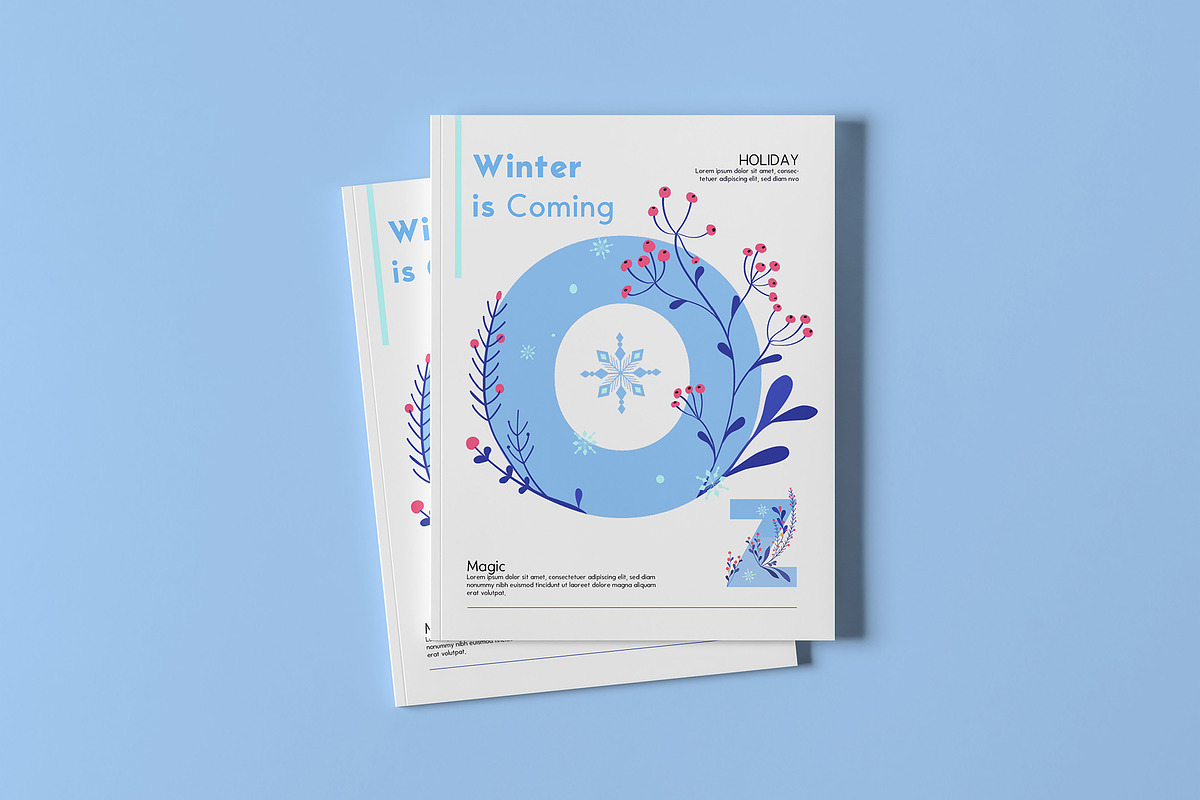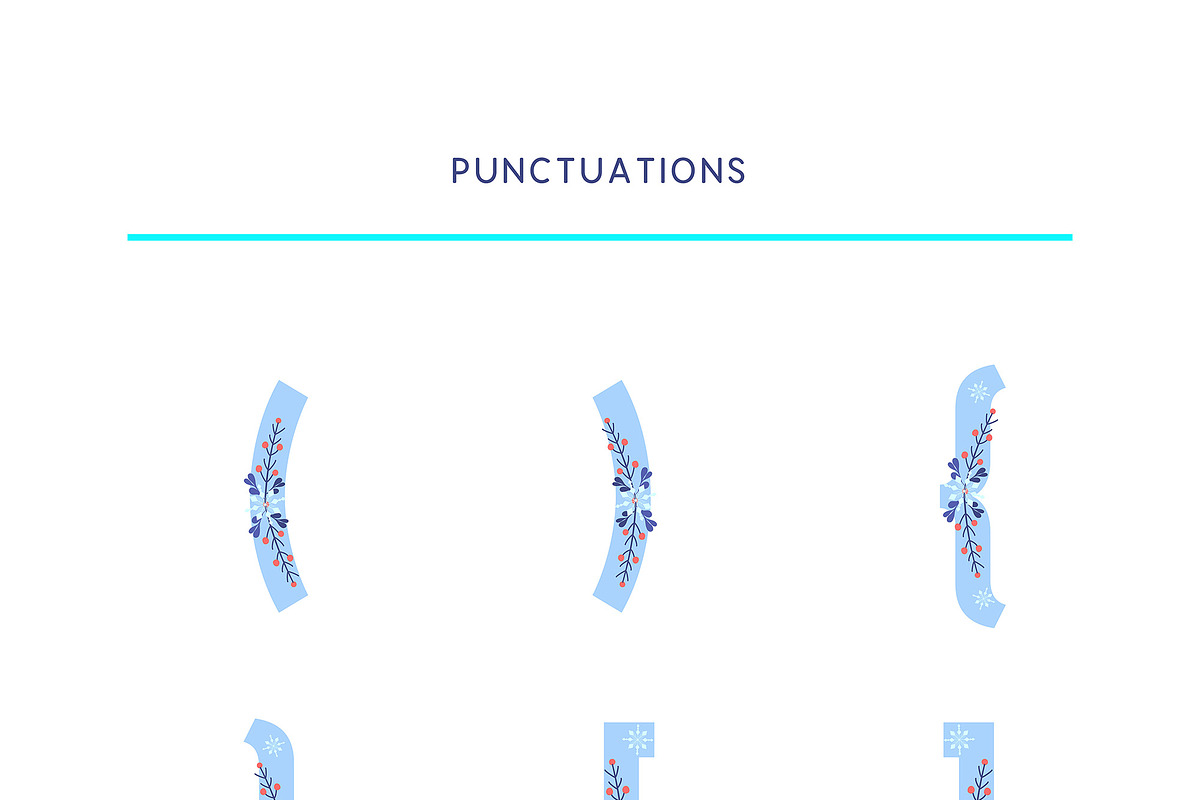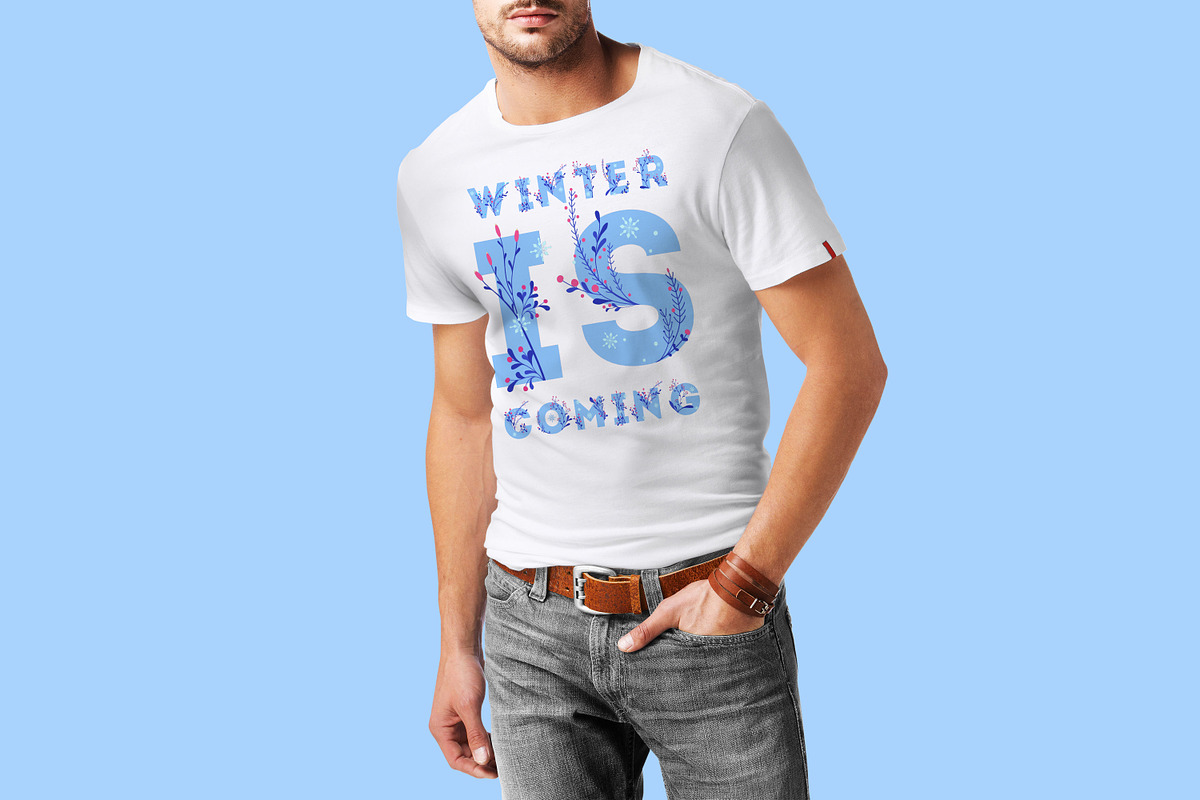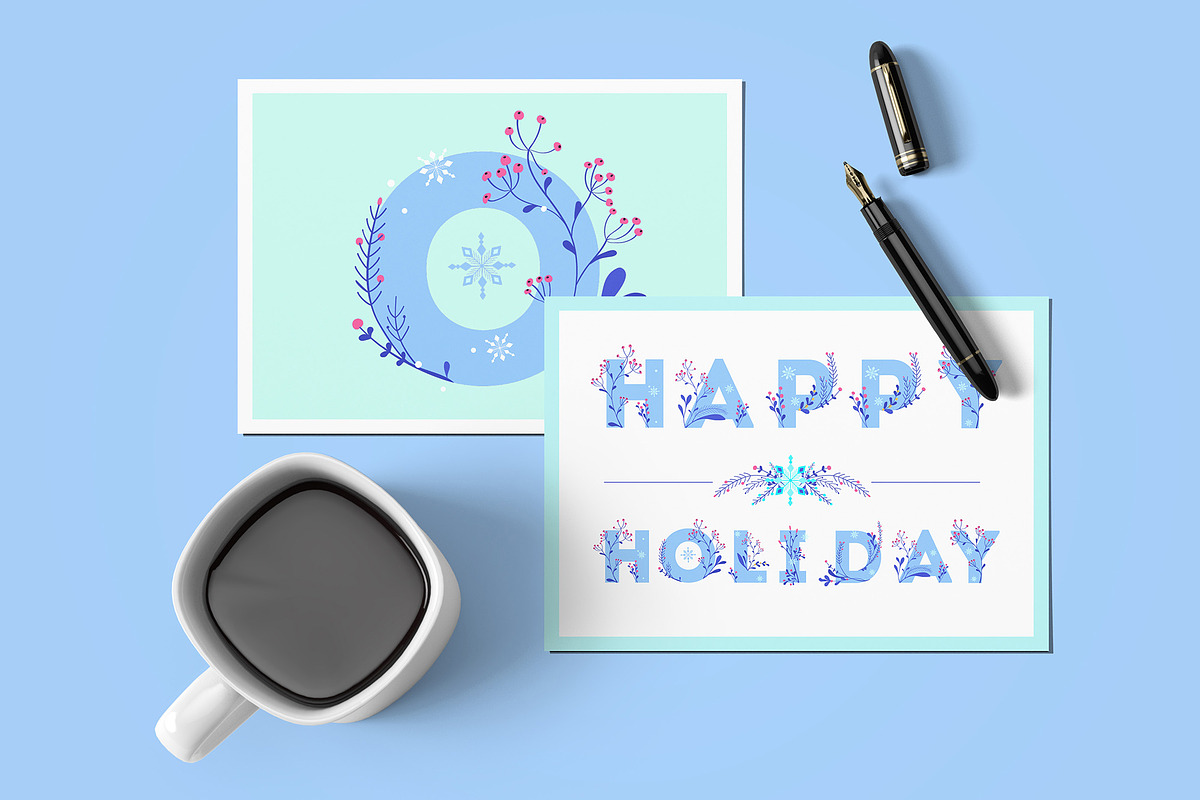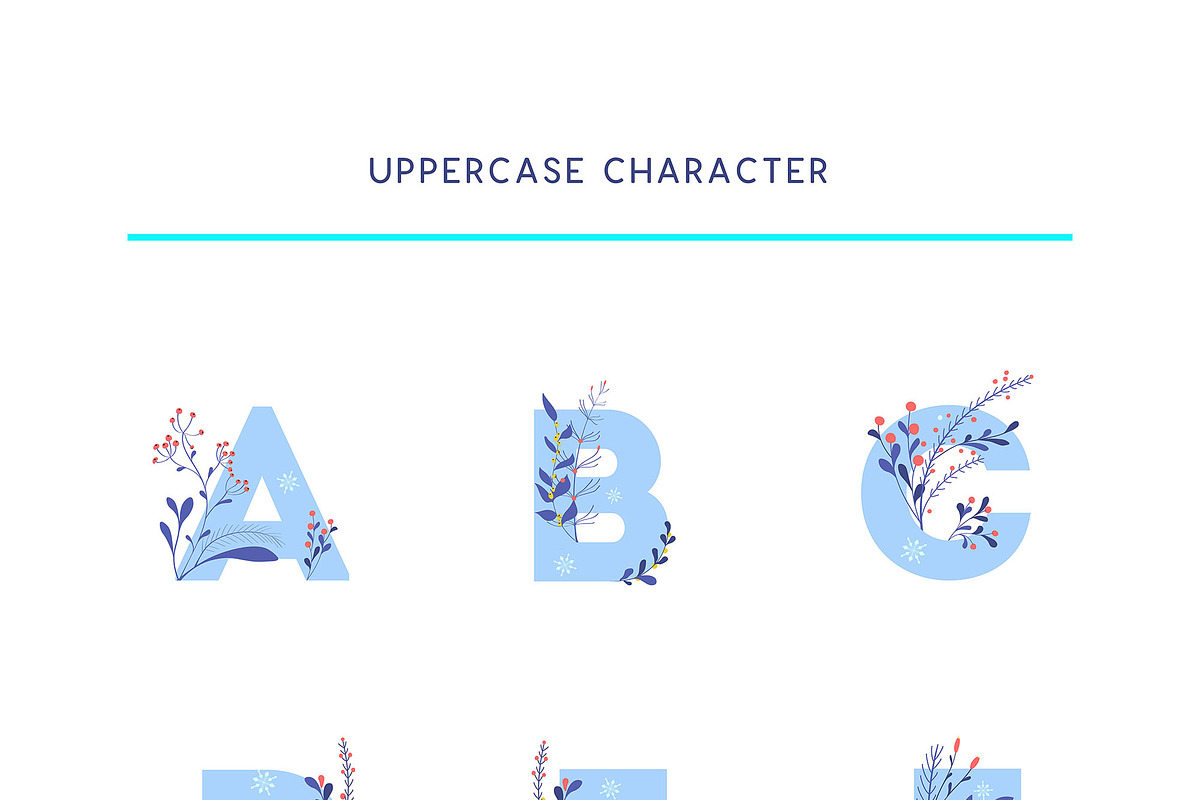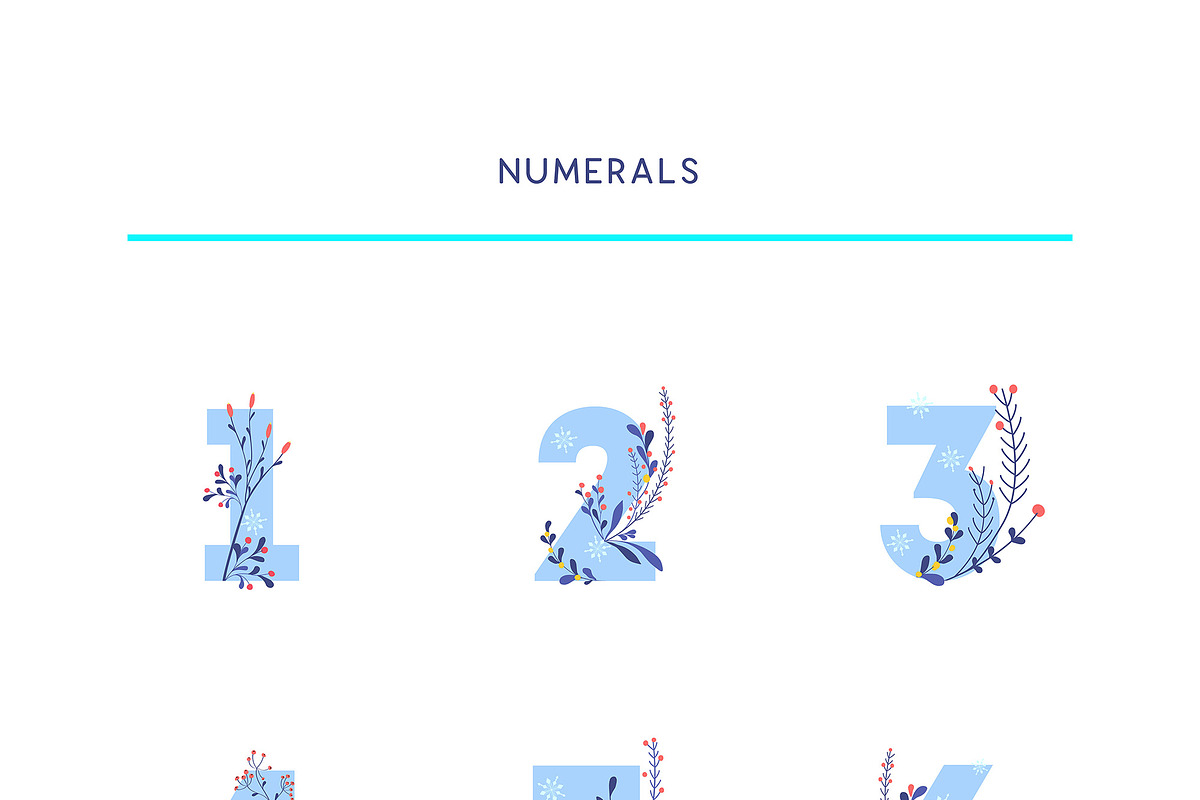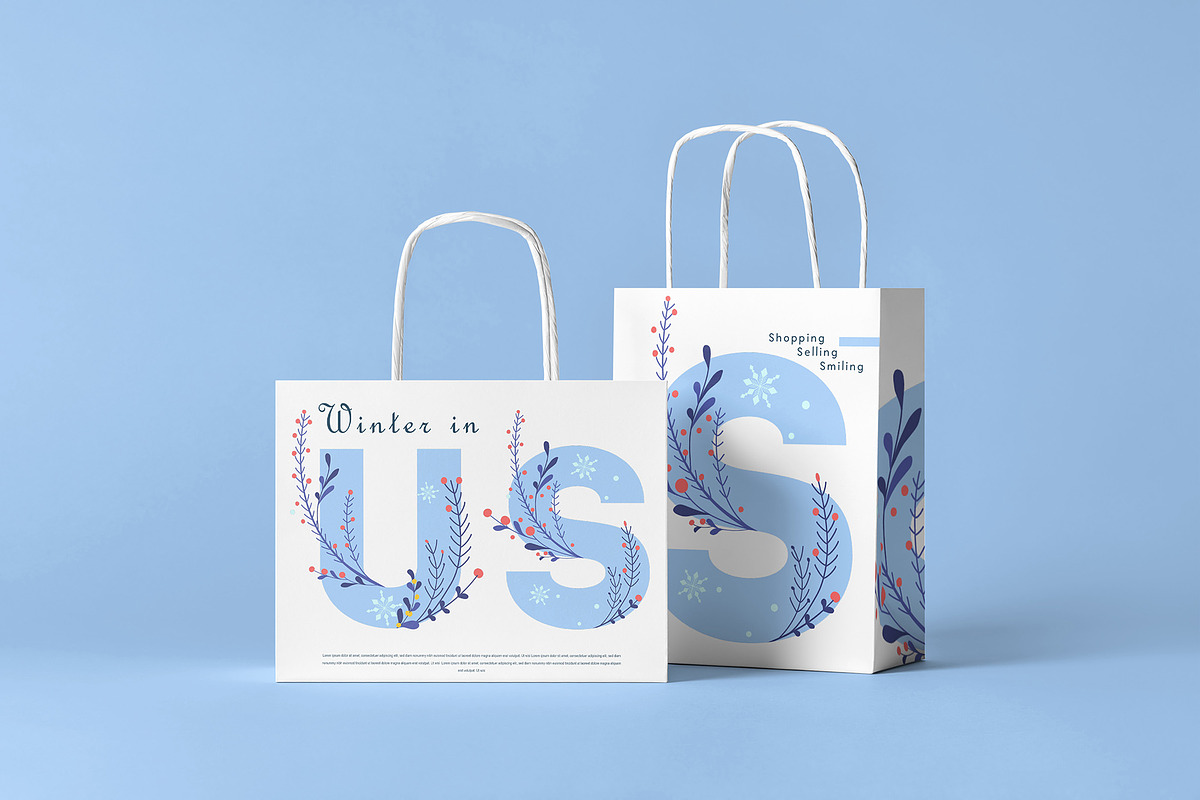
Let me introduce you to the new age of font format type.
So many of you may have heard about the new font format on the scene, OpenType-SVG or Color fonts. This new format is really awesome, because we can adding much more detail and style to the letters than previously possible. Learn more about color fonts & their support in third-party apps on
Winter Bold is Christmas Holiday theme color font, designed for headline and also art print. With this Magical font you can easily make your Holiday card, postcard, Banner, Logo, Poster, web and many more. Another great thing about OpenType-SVG formats is installable on Mac & windows and work like any other font.